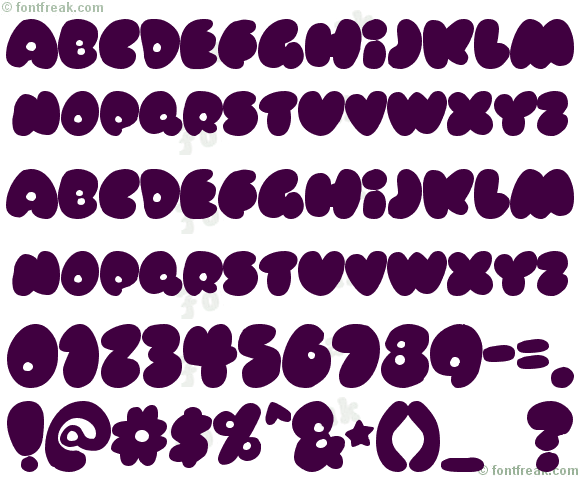
Rubberneck
About Rubberneck
Rubberneck, designed by Pizzadude, is a striking display font that falls into the category of decorative typefaces. With its bold and playful aesthetic, this font captures attention effortlessly. The visual characteristics of Rubberneck include a thick stroke weight complemented by minimal contrast, which gives it a solid and approachable appearance. The rounded edges and slightly irregular shapes add a sense of whimsy, making it perfect for projects that require a touch of fun and creativity. The spacing is well-balanced, ensuring legibility while still maintaining an engaging visual flow.
This font is particularly well-suited for a variety of use cases. It can be used effectively in wedding invitations where a casual yet charming vibe is desired, making the event feel inviting and warm. Rubberneck also shines in movie posters, as its eye-catching style can draw viewers' attention and convey a sense of excitement. Additionally, it works wonderfully for restaurant menus, adding a playful touch to food descriptions and enhancing the overall dining experience. Small business owners aiming to create a memorable brand identity will find this font useful for logos, signage, and promotional materials.
Rubberneck stands out due to its distinctive character and versatility. Its ability to blend fun with functionality makes it a valuable asset for any creative project, ensuring that your design not only captures attention but also leaves a lasting impression.